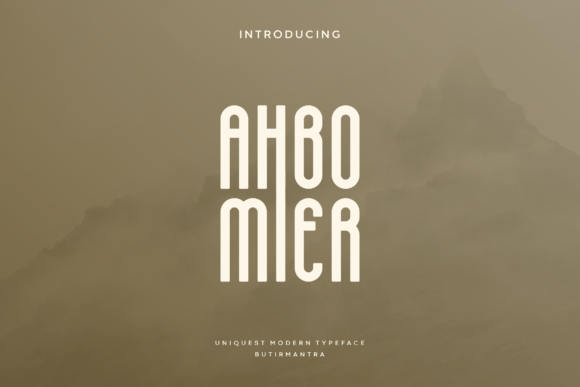
Introduction to Ahbomier Font
Ahbomier is an elegant font that blends modern elegance with vintage charm, comes with all-caps.
Its clean, simple lines give it a timeless look that will never go out of style Its graceful curves provide a unique visual aesthetic that adds a touch of luxury to any design.